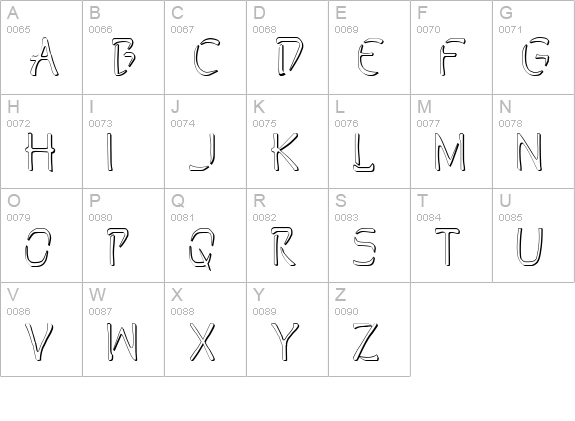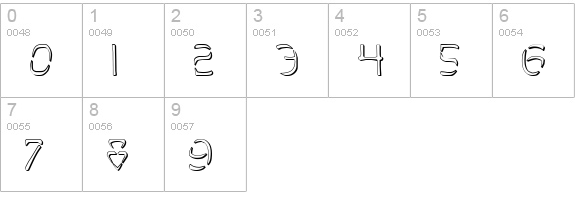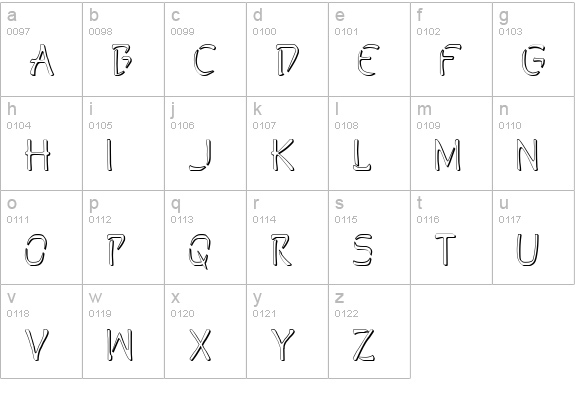
Perdition Outline font is a stunning typeface that effortlessly combines elegance and edginess. This unique font features a captivating outline design, giving your text a distinctive and eye-catching appearance. With its sharp and precise lines, Perdition Outline font is perfect for adding a touch of sophistication to any design project. What makes Perdition Outline font even more remarkable is that it is available for free! You read that right - this exceptional font can be downloaded at no cost from FontsMarket.com. Whether you're a professional designer or a casual user, this free font gives you the opportunity to enhance your creations without breaking the bank. The versatility of Perdition Outline font is truly remarkable. It can be used for various purposes, including branding, logos, posters, invitations, and much more. Its bold and contemporary style ensures that your message will be delivered with impact and style. With Perdition Outline font, you have the freedom to explore your creativity and bring your ideas to life. Whether you're designing a sleek and modern website or creating captivating social media graphics, this font will elevate your designs to new heights. Don't miss out on this incredible opportunity to enhance your design projects with Perdition Outline font. Download it for free today at FontsMarket.com and unlock a world of possibilities for your typography needs.